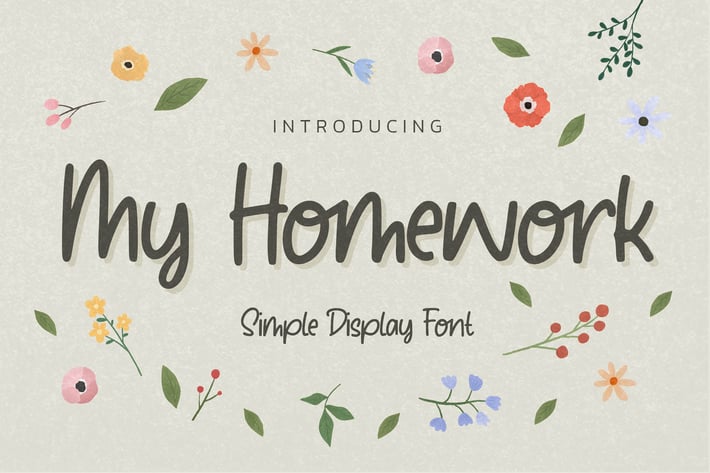
My Homework - Simple Display Font
My Homework - Simple Display Font. This handmade font will make your design has a beautiful natural touch for each details. It is perfect for any design project as Invitation,logo, book cover, craft or any design purposes.
This font is PUA encoded which means you can access all of the magical glyphs and swashes with ease!
+ Ligatures